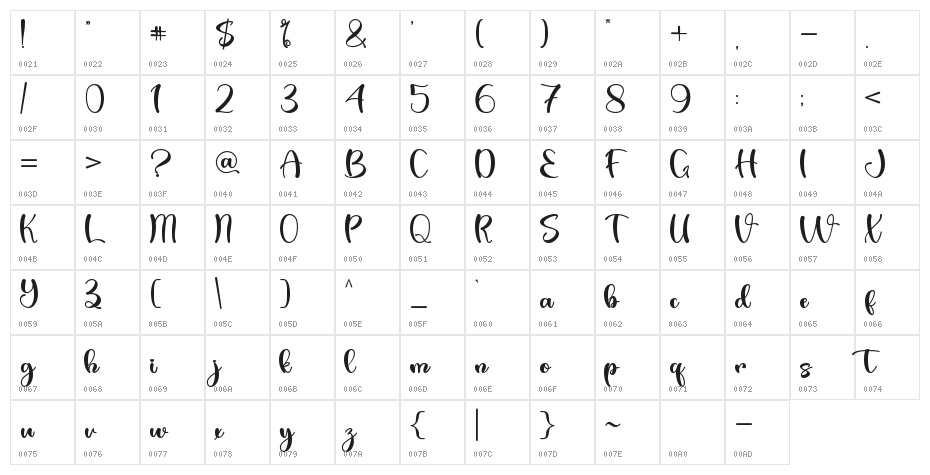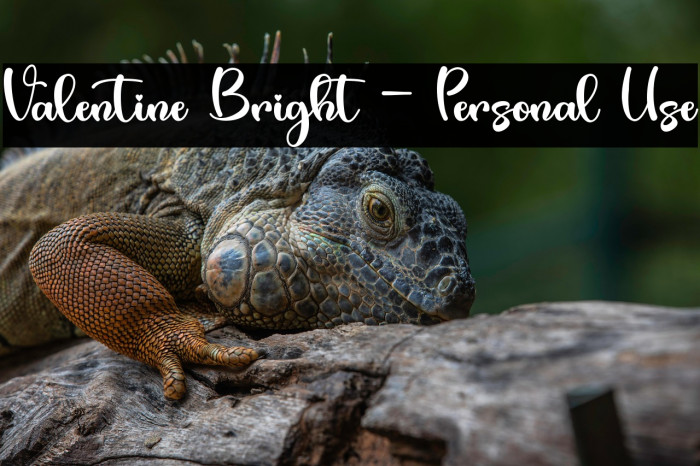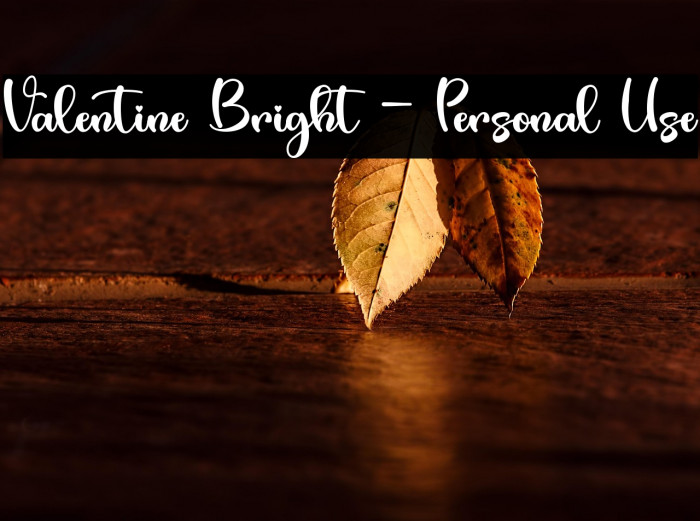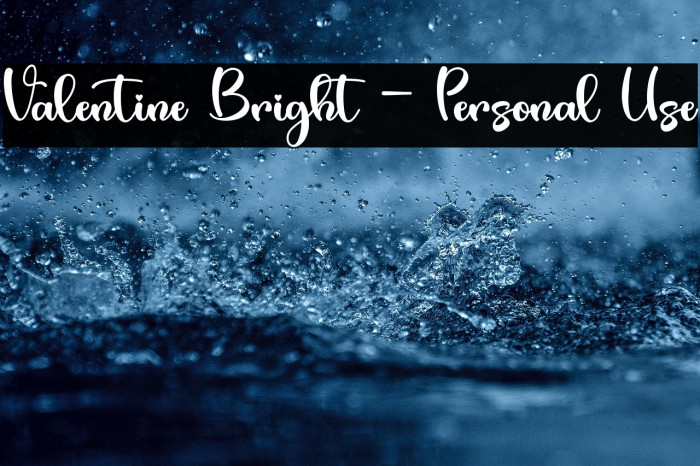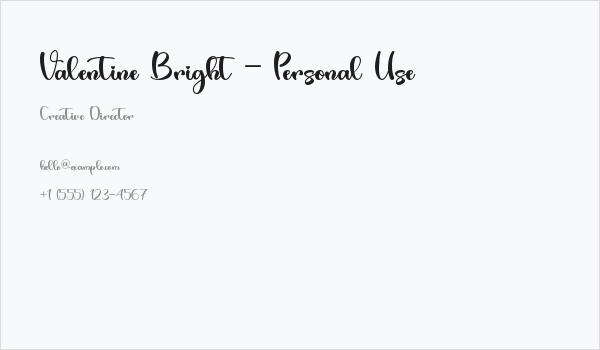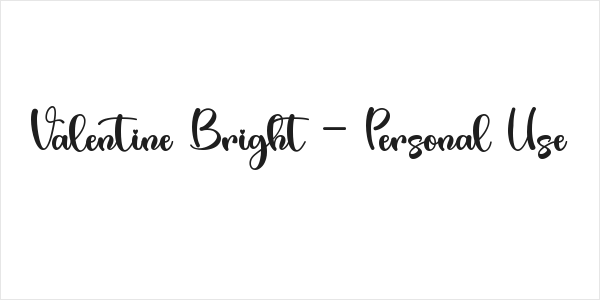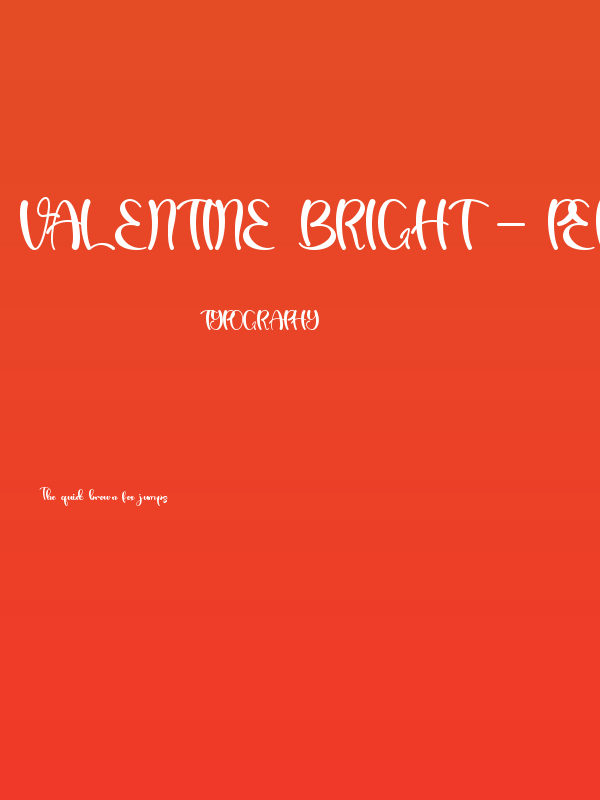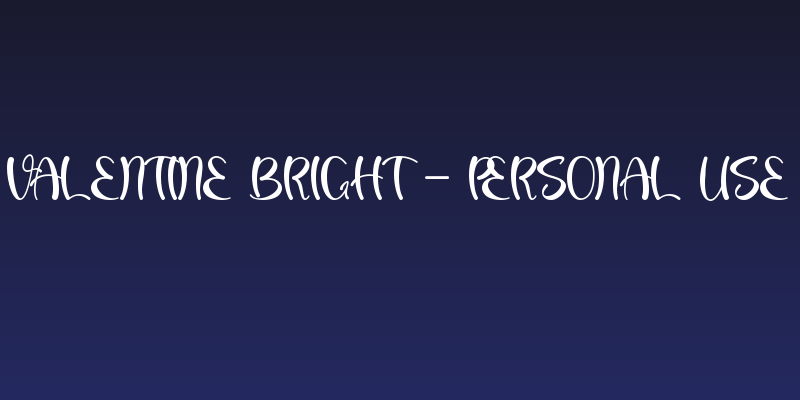
Valentine Bright - Personal Use Font
Valentine Bright - Personal Use Description
This font features a lively and expressive script style, characterized by its flowing, cursive letterforms. The uppercase letters are bold and dynamic, with a playful yet elegant flair, while the lowercase letters maintain a consistent rhythm with smooth, rounded curves. The numerals are stylish and complement the overall aesthetic, adding a touch of sophistication. Special characters are thoughtfully designed to match the font's whimsical nature. The strokes are moderately thick, providing a sense of boldness without overwhelming the design. This font is perfect for projects that require a personal and artistic touch.
| Proposed Projects | Ideal for wedding invitations, greeting cards, branding, and decorative signage. |